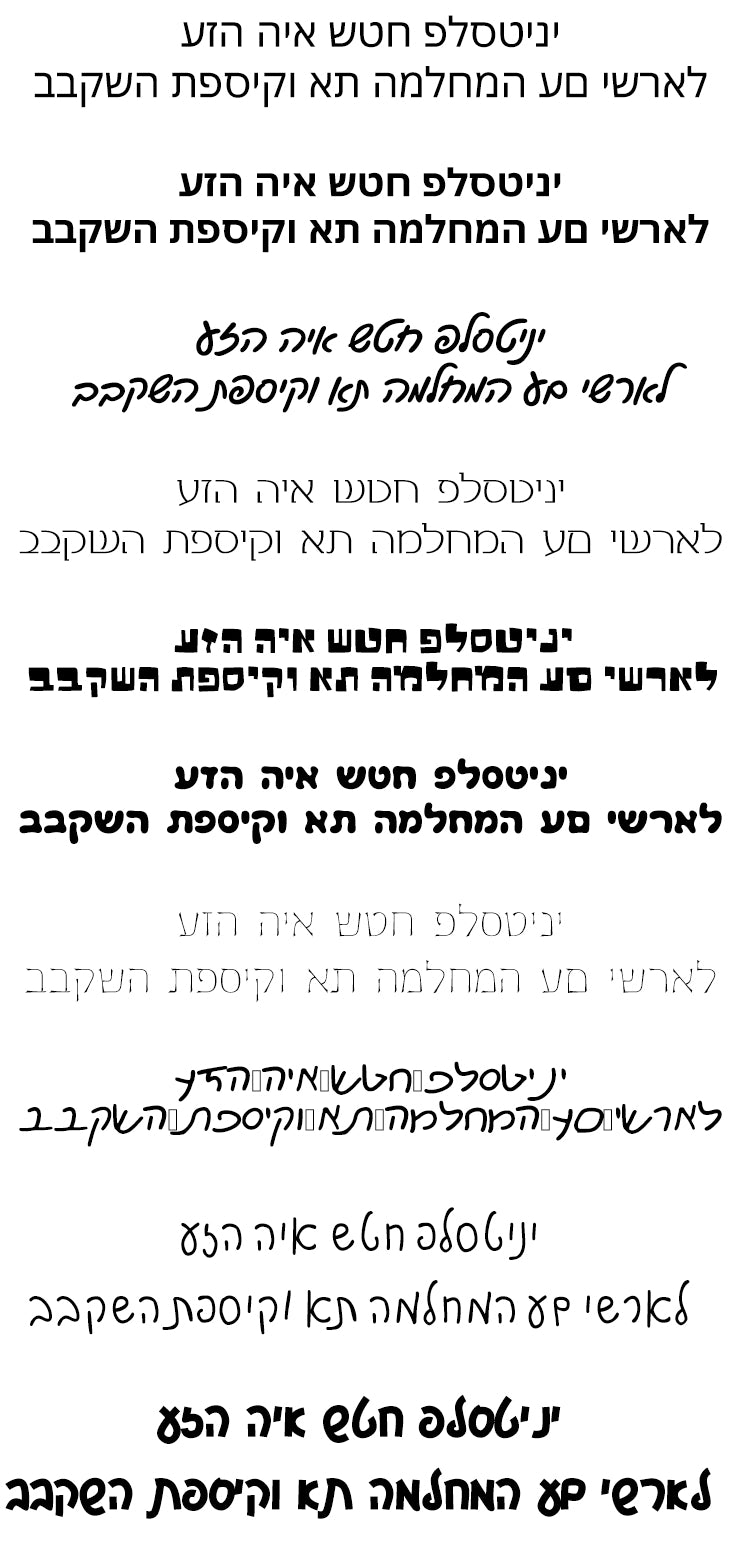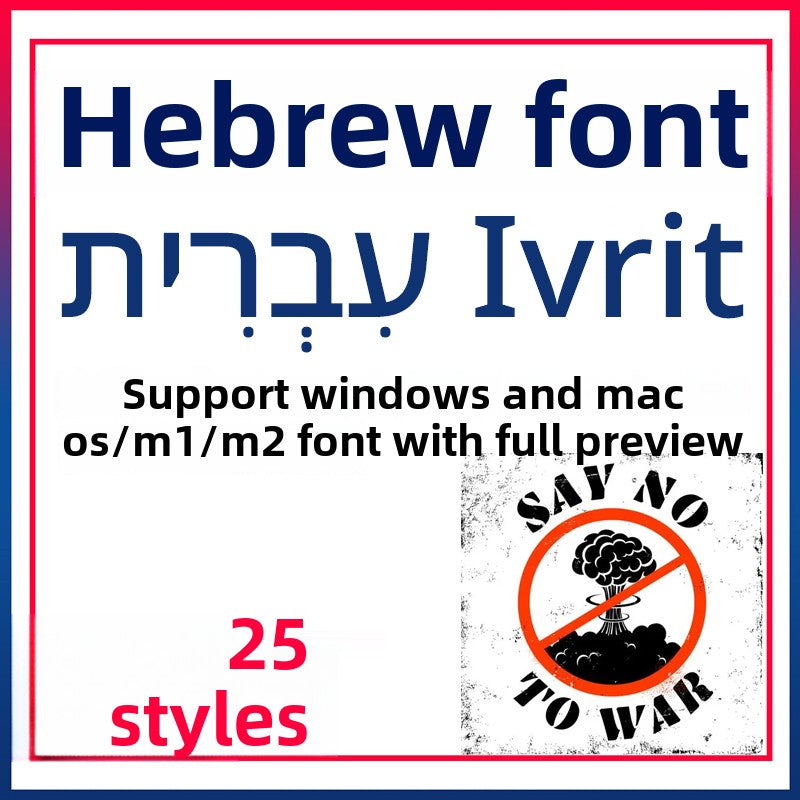
✅ Rare Script Coverage - Includes Biblical Hebrew, Yiddish & Modern Jewish calligraphy
✅ Multi-Language Support - Supports Hebrew, English, Arabic & European languages
• Exclusive Jewish holiday-themed decorative fonts
• Multiple weights (Light to Black) in select families
• Includes rare ligatures and alternate glyphs